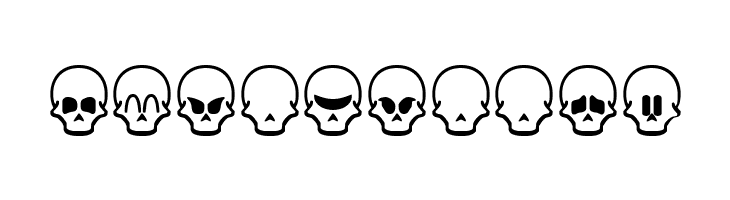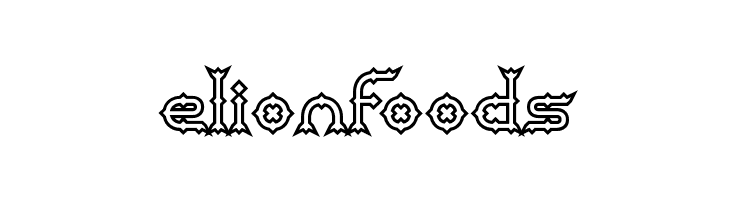
A bold, stencil-like font with an industrial, impactful design.
A bold, pixelated font with a rough, hand-drawn outline.
A bold, distressed font with a rugged, aged appearance.
A decorative font featuring unique skull designs for each character.
A decorative, gothic-inspired font with sharp, angular edges and bold outlines.